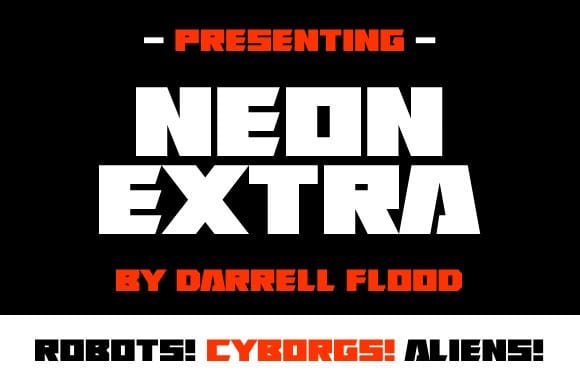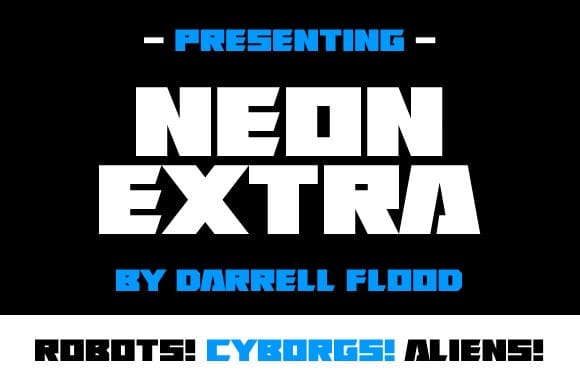
Neon Extra Font
Neon Extra Font is an edgy sci-fi font in a sharp angular style. Ultra bold for maximum visual impact. Perfect for high tech themes, and any modern use!